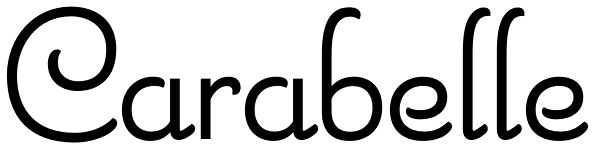
Carabelle
Carabelle is based on the Nebiolo type foundry’s Calipso design. Newly redrawn and with many original details added, this old typeface has been revitalized. Noble and sweet, Carabelle plays the elegant companion for cup cake shops, wedding...